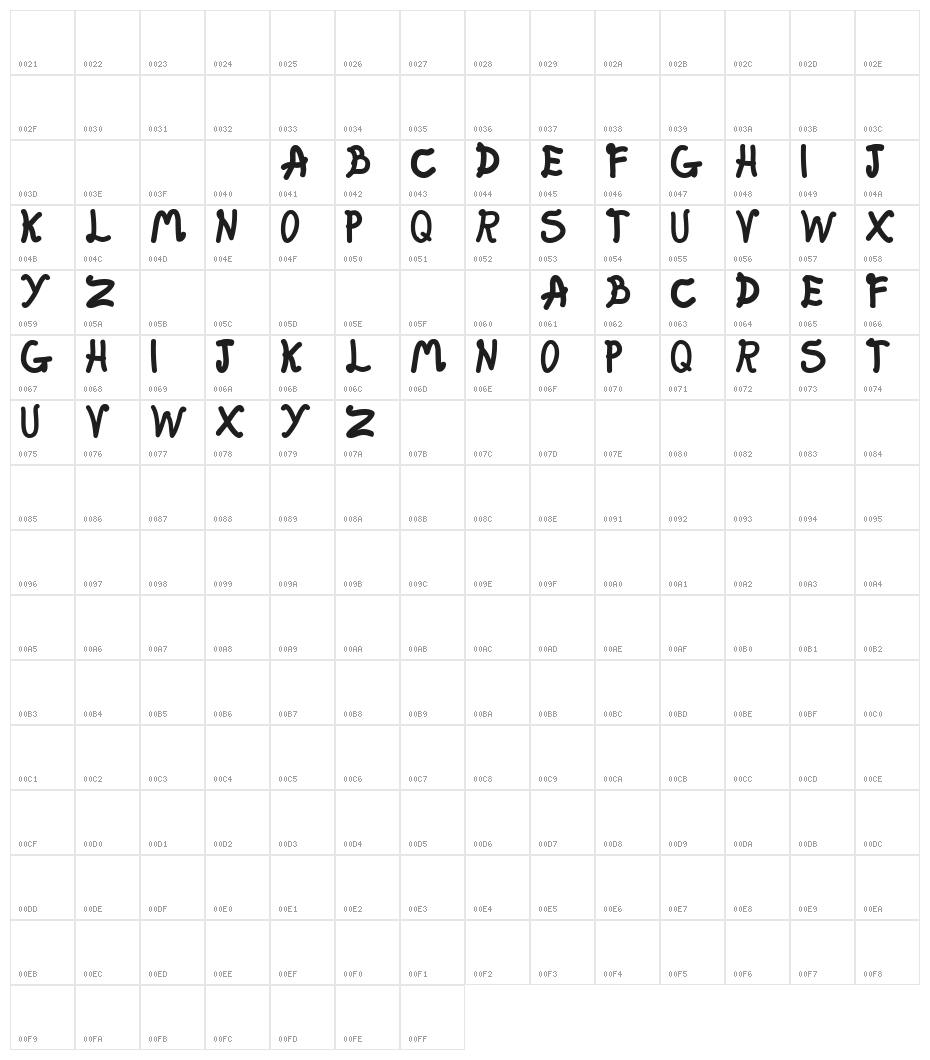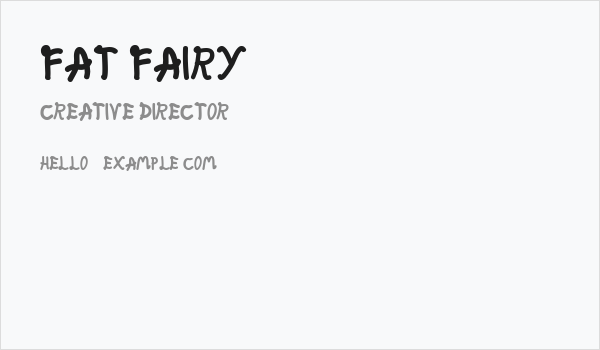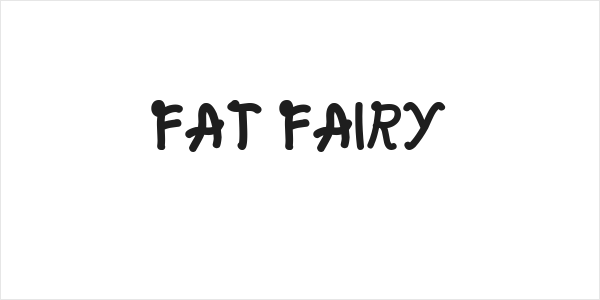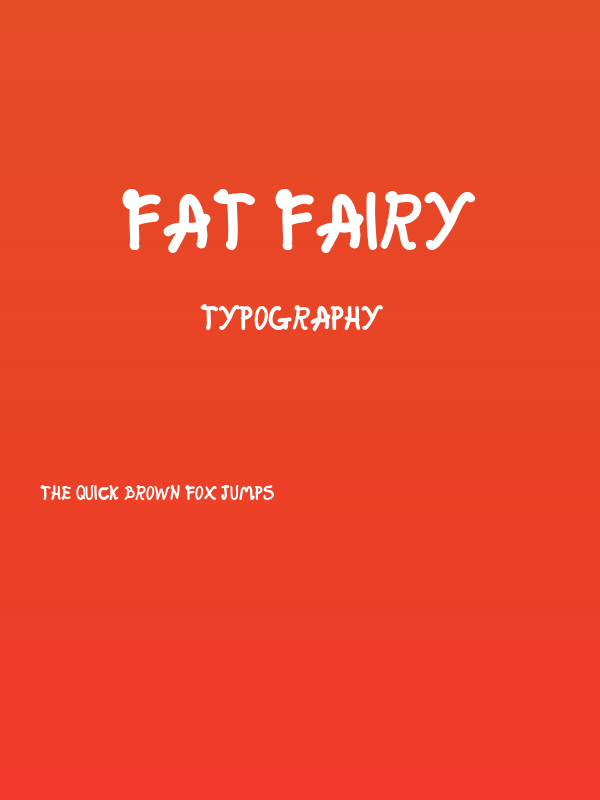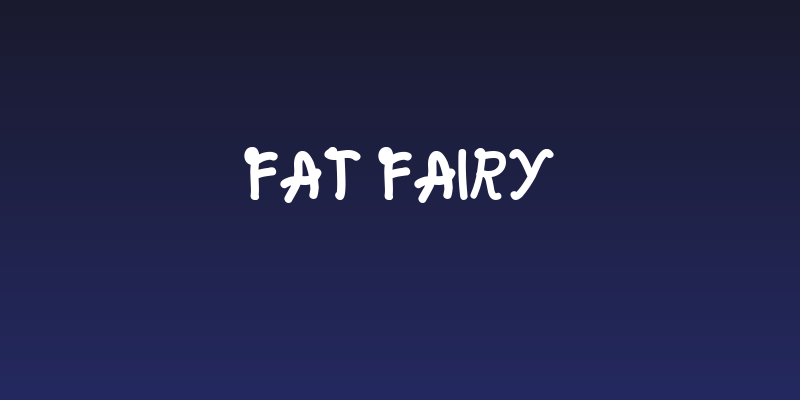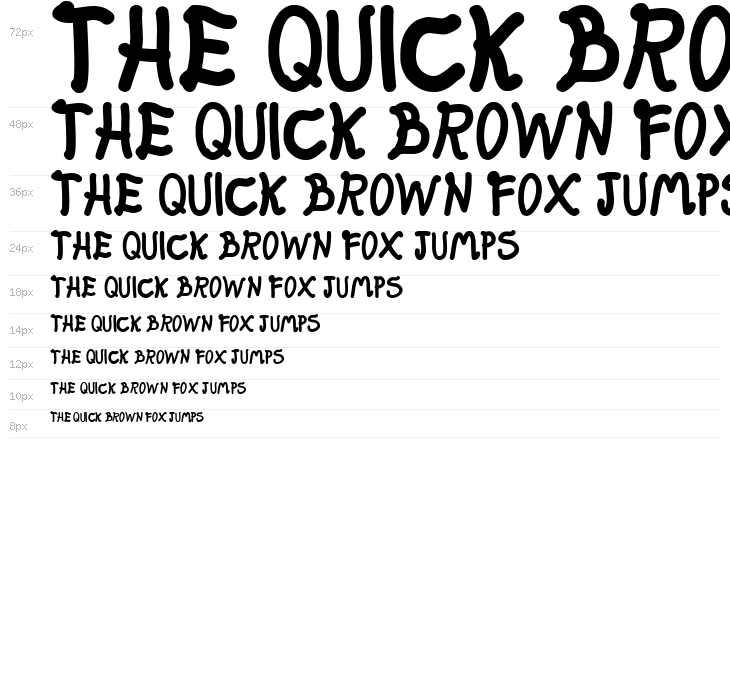
Fat fairy Font
Fat fairy Description
This playful and whimsical font features bold, rounded characters with a hand-drawn aesthetic. The strokes are thick and consistent, giving it a cartoonish and friendly appearance. Each letter has a unique, slightly irregular shape, adding to its charm and approachability. The font maintains a consistent baseline, while the curves and loops of the letters add a sense of movement and energy. It's perfect for projects that require a fun and informal touch, such as children's books, playful branding, or creative posters. The overall style is both modern and nostalgic, reminiscent of hand-lettered signage.
| Overall Style | Playful, Whimsical, Hand-drawn |
| Proposed Projects | Ideal for children's books, playful branding, creative posters, and informal invitations. |